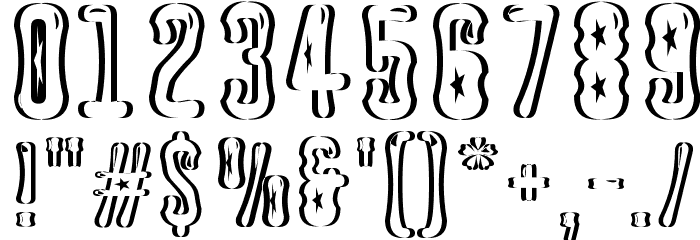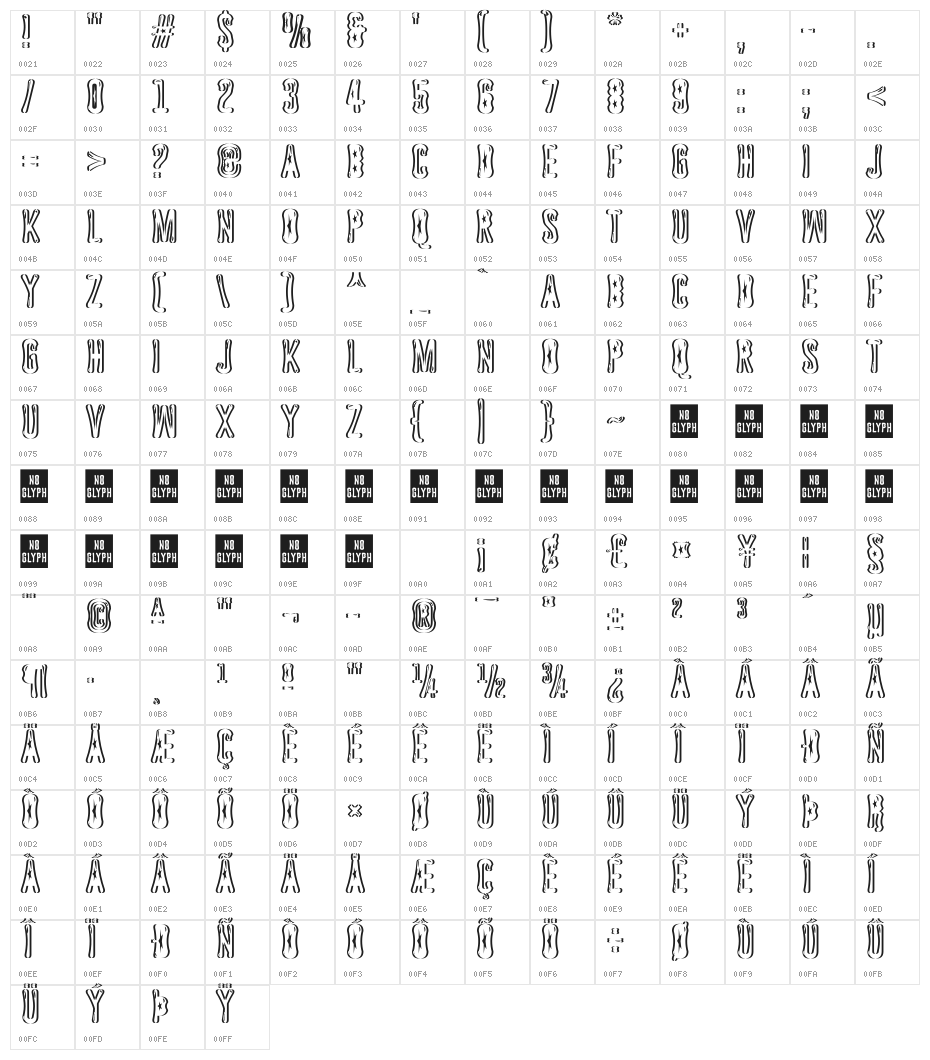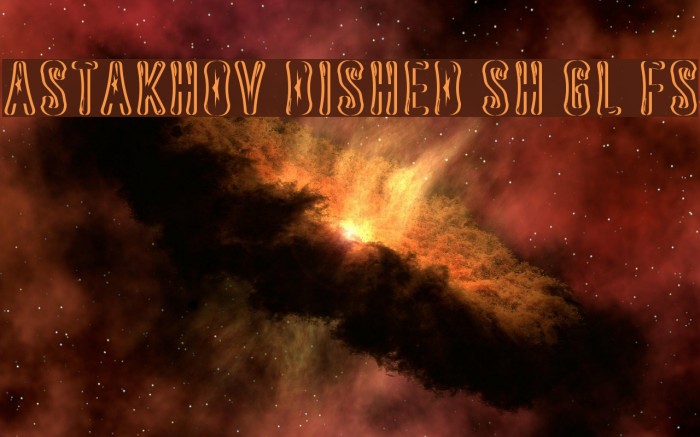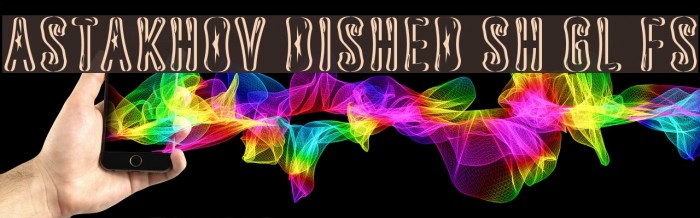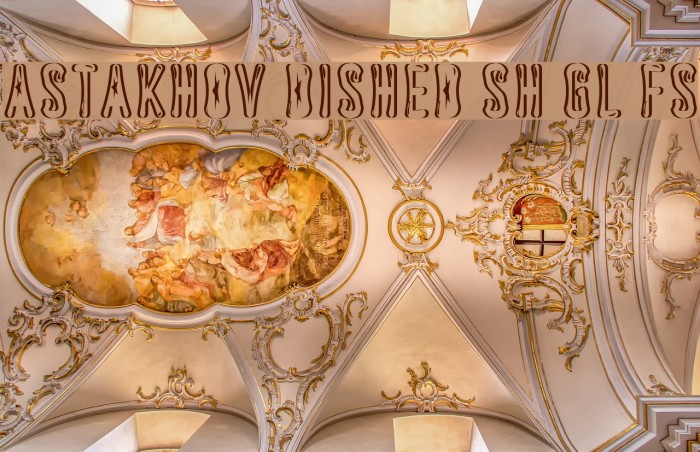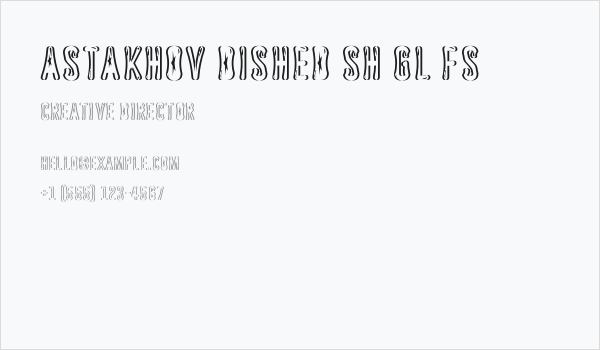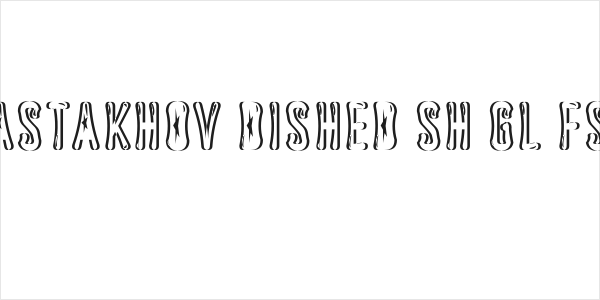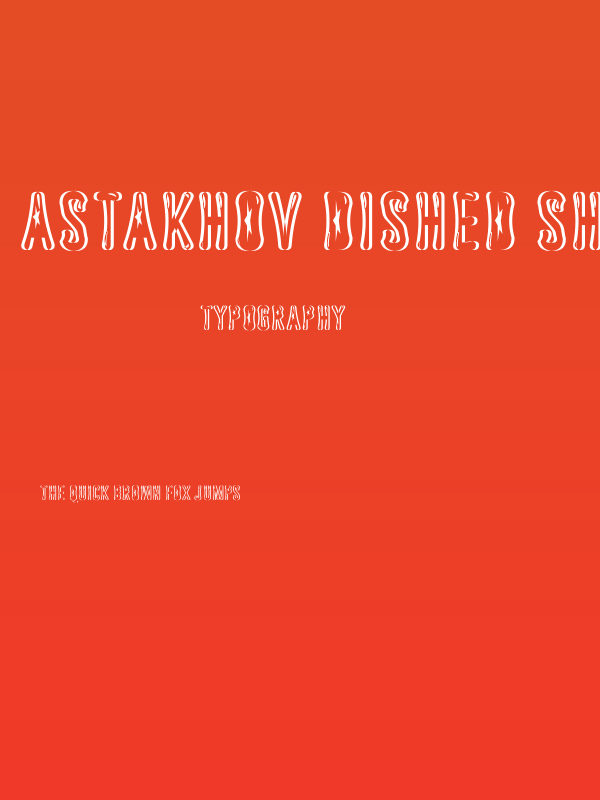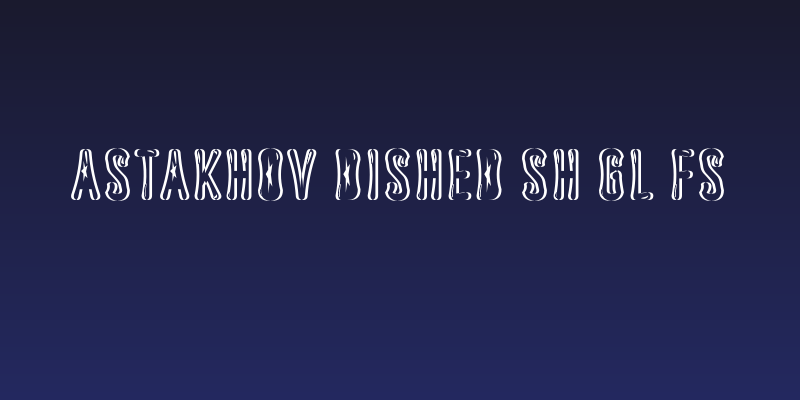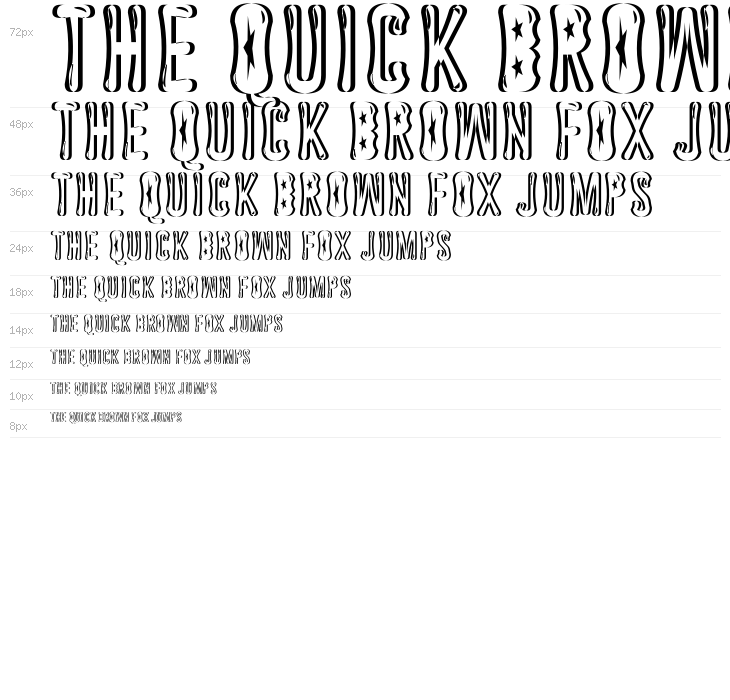
Astakhov Dished Sh Gl FS Font
Astakhov Dished Sh Gl FS Description
This font features a bold, decorative style with a unique star motif embedded within each character. The letters are outlined with a shadow effect, giving them a three-dimensional appearance. The uppercase and lowercase letters maintain a consistent design, enhancing the font's cohesive look. Numbers and special characters are also included, each reflecting the same decorative star pattern. The overall design is eye-catching and playful, making it suitable for creative and artistic projects.
| Proposed Projects | Ideal for posters, event invitations, children's book covers, and any project requiring a playful and artistic touch. |